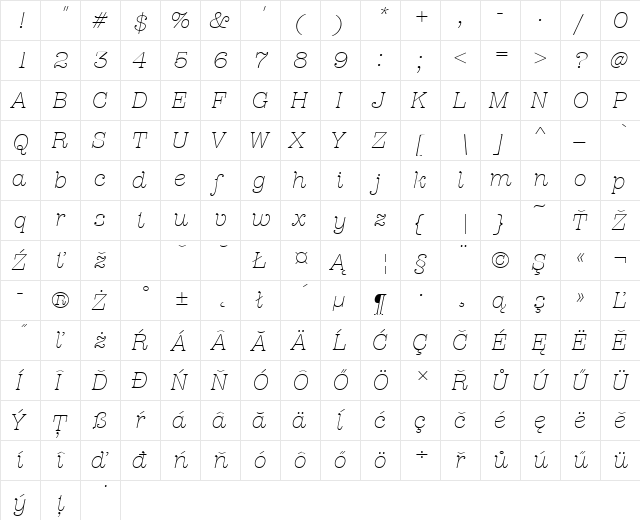
AmericanTypItcTEELig Italic
Design Context for AmericanTypItcTEELig Typeface
AmericanTypItcTEELig takes a measured approach to typography — its balanced proportions and neutral character make it a reliable workhorse for both digital and print work. The dynamic lean of this cut emphasises speed and emphasis in any layout.
Pro Tip: Use AmericanTypItcTEELig for emphasis, pull quotes, and subheadings where its slanted energy can add rhythm to the layout.